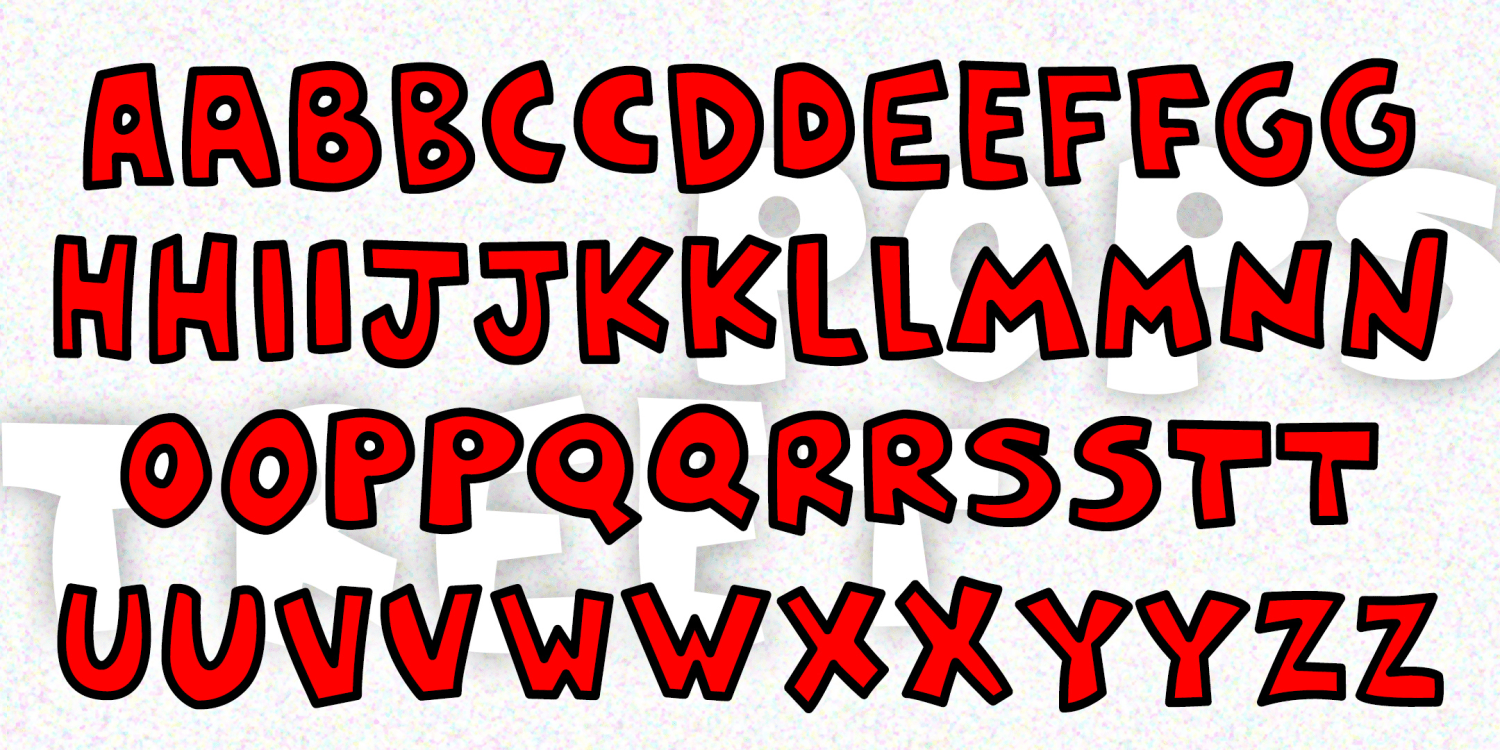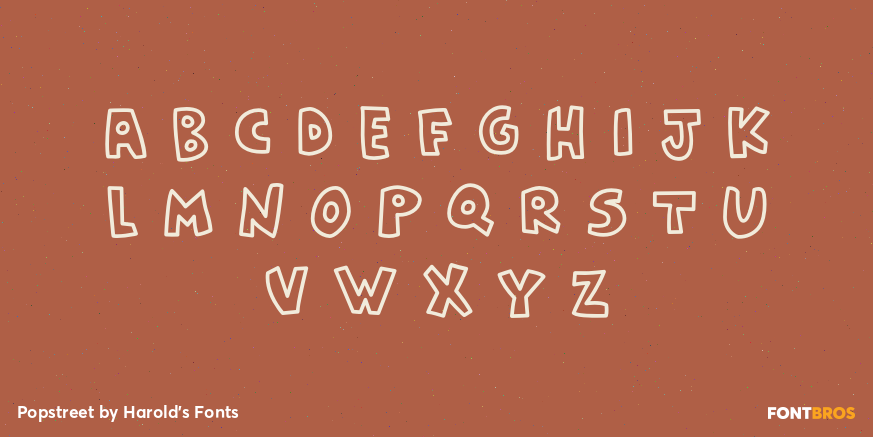
Popstreet
Font Family by Harold's Fonts
POPSTREET is a pair of fonts inspired by the work of Keith Haring (1958-1990) whose work referenced both Pop and street art. Haring first became known for his graffiti drawings done in the subway, but was also respected for his gallery work and public art, his accessible, affordable design, and his social activism. The set includes an Outline and a Fill font that can be used separately or layered together in different colors.
Popstreet Outline
Popstreet Fill